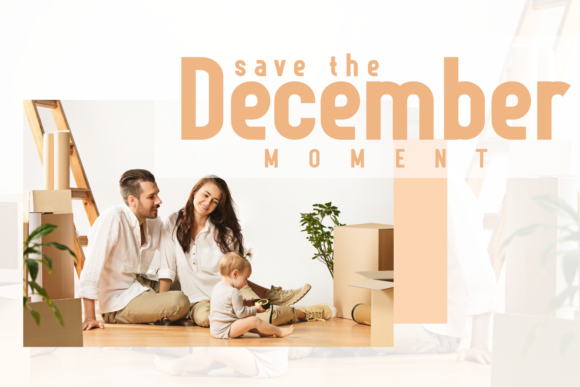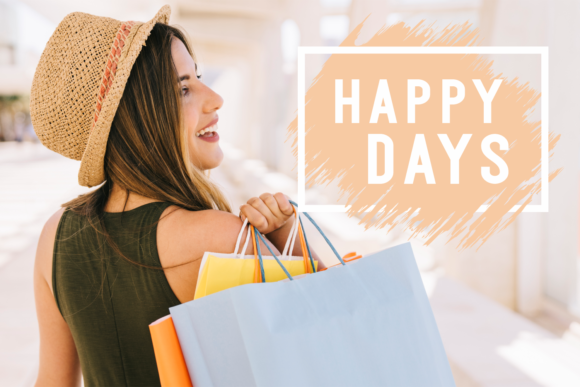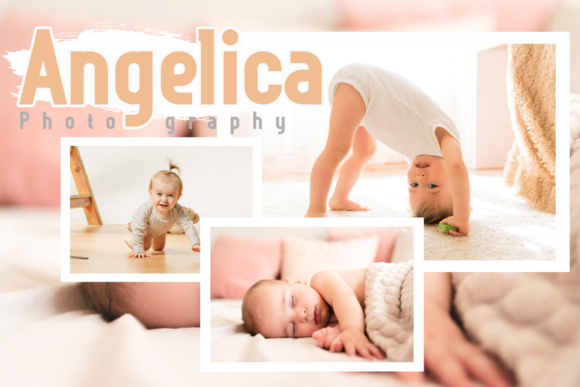
The Font That Stole My Heart: A Deep Dive into Deaisha Font
I’ll never forget the moment I stumbled upon Deaisha Font while working on a branding project for a client. I had been searching for the perfect font for hours, trying out different styles and weights, but nothing seemed quite right. That was until I saw Deaisha – a bold, yet elegant sans serif font that immediately caught my eye. Its neat and simple style made it an instant favorite, and I knew I had to learn more about it.
An Honest Review of Deaisha Font
What I Love About Deaisha Font
- ✨ Versatility: Deaisha Font is suitable for a wide variety of designs, from modern logos to elegant headings.
- ✅ Readability: The font’s clean and simple style makes it easy to read, even at small sizes.
- 💡 Creativity booster: Deaisha Font’s unique character set and OpenType features make it a great choice for creative projects.
While Deaisha Font is an amazing addition to any design project, there are a few things to keep in mind:
- 🤔 Limited italic style: Deaisha Font’s italic style is not as pronounced as some other fonts, which may be a drawback for some users.
The Story Behind Deaisha Font
Deaisha Font was designed with the goal of creating a bold, yet elegant sans serif font that could be used in a wide range of designs. The designer, inspired by modern typography and classic elegance, crafted Deaisha Font to be a versatile and creative choice for designers and crafters alike.
Q: What is Deaisha Font?
A: Deaisha Font is a bold, yet elegant sans serif font suitable for a wide variety of designs.